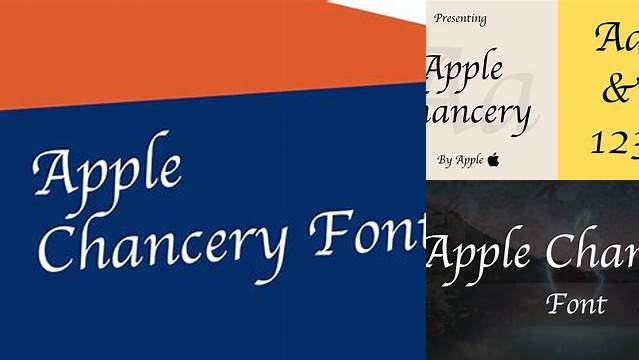
Are you looking to download the Apple Chancery Normal font for free? Well, you've come to the right place, guys! This font, known for its elegant and calligraphic style, has been a favorite among designers and typography enthusiasts for years. In this comprehensive guide, we'll explore everything you need to know about Apple Chancery, including its history, characteristics, uses, and, most importantly, how to download it without spending a dime. So, buckle up and let's dive into the world of this beautiful typeface!
What is Apple Chancery Font?
Let's kick things off by understanding what exactly the Apple Chancery font is. This exquisite typeface is a calligraphic font that was initially designed by Charles Bigelow and Kris Holmes back in 1993. It was specifically created for Apple Inc. and quickly became a staple in their operating systems. What sets Apple Chancery apart is its unique blend of traditional calligraphy with a modern, digital twist. The font exudes a sense of sophistication and grace, making it ideal for projects that require a touch of elegance. It's like the James Bond of fonts β smooth, refined, and always ready to impress!
The font's design is inspired by the Chancery hand, a historical style of writing that was popular during the Renaissance period. Bigelow and Holmes masterfully captured the essence of this traditional script while adapting it for contemporary use. The result is a font that feels both timeless and fresh. Each character is meticulously crafted, with delicate strokes and elegant curves that give it a distinctive personality. This attention to detail is what makes Apple Chancery a true work of art in the world of typography.
Apple Chancery's charm lies in its versatility. It can be used in a variety of design contexts, from formal invitations and certificates to branding materials and creative projects. Its elegant appearance makes it a perfect choice for wedding invitations, greeting cards, and other special occasion documents. At the same time, its readability ensures that it can also be used for body text in certain applications. Whether you're designing a logo, creating a website, or working on a personal project, Apple Chancery can add a touch of class and sophistication. Itβs like having a secret weapon in your design arsenal!
History and Evolution of Apple Chancery
Now, let's take a journey back in time to explore the history and evolution of the Apple Chancery font. As mentioned earlier, this font was the brainchild of Charles Bigelow and Kris Holmes, two prominent figures in the world of typography. Their collaboration resulted in a typeface that not only met Apple's specific needs but also became a beloved font among designers worldwide. Understanding the history behind a font can often give you a greater appreciation for its design and its place in the world of typography.
The creation of Apple Chancery in 1993 was a significant milestone in the world of digital typography. At the time, there were relatively few high-quality calligraphic fonts available for computers. Apple recognized the need for a font that could capture the elegance of traditional handwriting while taking advantage of the capabilities of digital technology. Bigelow and Holmes were the perfect duo to tackle this challenge. They brought their expertise in both typography and calligraphy to the project, resulting in a font that was both technically sound and aesthetically pleasing.
Apple Chancery quickly became a standard font on Macintosh computers and played a significant role in shaping Apple's brand identity. It was used extensively in Apple's marketing materials, user interfaces, and other design applications. The font's elegant appearance helped to reinforce Apple's image as a company that valued both innovation and aesthetics. Over the years, Apple Chancery has remained a popular choice for designers and typographers, even as new fonts have emerged. Its timeless appeal and versatility have ensured its continued relevance in the world of design.
While Apple Chancery was initially designed for Apple's operating systems, it has since become available for other platforms as well. This has allowed a wider audience to experience the beauty and elegance of this font. Its journey from a proprietary font to a widely accessible typeface is a testament to its enduring appeal and its importance in the world of typography. Whether you're a seasoned designer or just starting out, understanding the history of Apple Chancery can help you appreciate its significance and use it effectively in your own projects.
Key Characteristics and Style of Apple Chancery
To truly appreciate Apple Chancery, we need to delve into its key characteristics and style. This isn't just your average font, guys; it's got a personality all its own! Understanding the nuances of its design will help you use it effectively in your projects and appreciate its unique charm. So, what makes Apple Chancery stand out from the crowd?
First and foremost, Apple Chancery is a calligraphic font, which means it emulates the flowing, elegant strokes of handwriting. This gives it a human touch that many other fonts lack. The letters are designed with a sense of fluidity and grace, making it perfect for projects that require a touch of sophistication. Think of it as the handwritten note in a world of emails β it adds a personal touch that can make all the difference. The font's calligraphic style is also influenced by the Chancery hand, a historical script that was popular during the Renaissance. This gives it a timeless quality that makes it suitable for both traditional and modern designs.